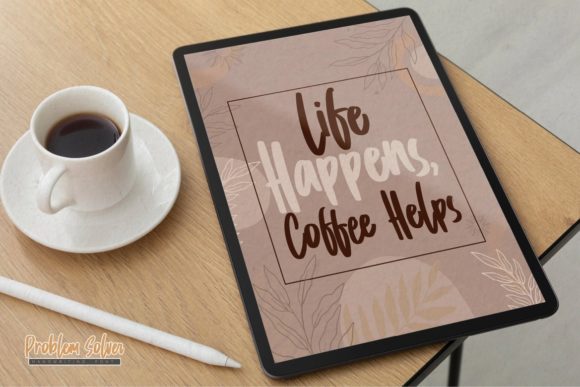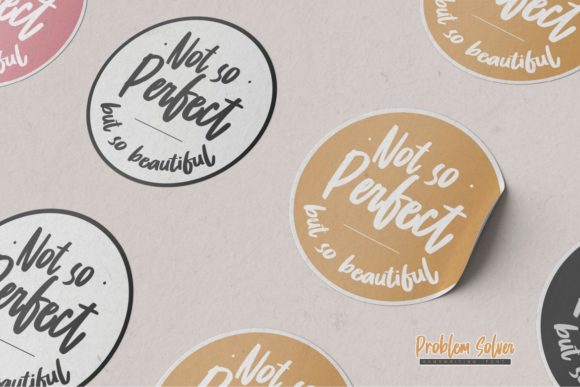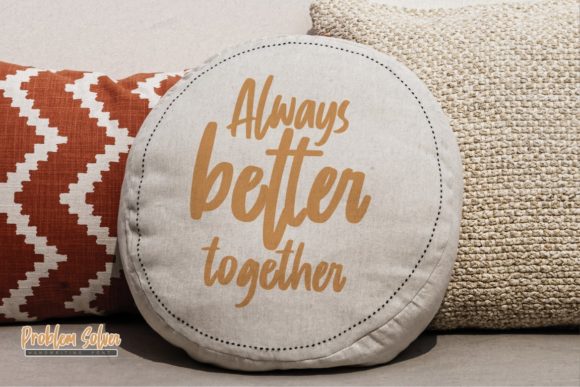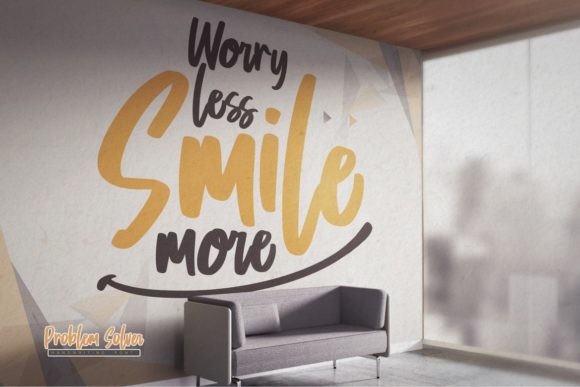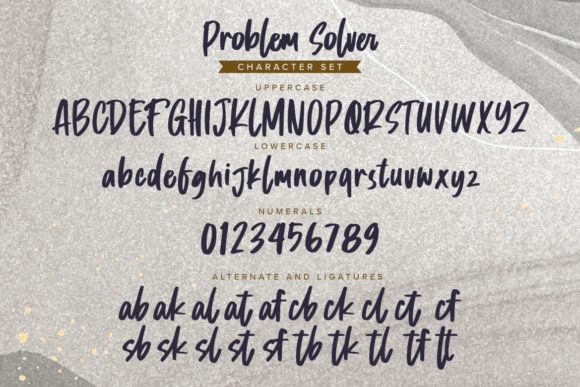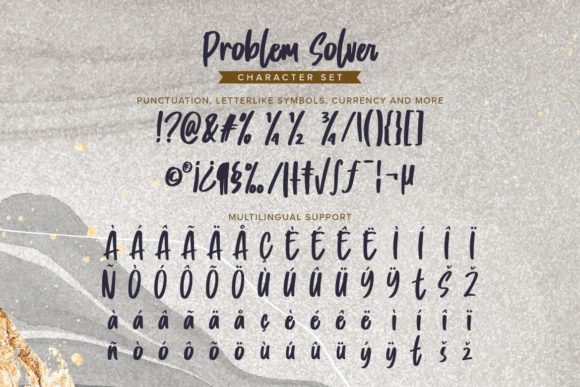
Introduction to Problem Solver Font
Have you ever stared at a blank canvas, wondering how to bring your creative project to life? The blank page can be daunting, but with the right tools, anything is possible. That’s where the Problem Solver Font comes in – a simple, relaxed, and adaptable handwritten font that’s about to become your go-to design resource.
This high-quality font is designed to help you express your creativity without any barriers. Its informal style and casual vibe will make it easy to create unique and eye-catching designs that stand out from the crowd. Whether you’re working on a design project with a transparent background or need a font that’s perfect for a free download, the Problem Solver Font is a valuable asset for any designer.
Key Features of Problem Solver Font
- High-quality design: Problem Solver Font is designed to provide a clear and legible experience for creative projects, with a focus on readability and aesthetic appeal.
- Transparent background: This font features a transparent background, making it ideal for use on complex designs, such as those with multiple layers or gradients.
- High-resolution design: Problem Solver Font is designed at a high resolution (300 DPI), making it suitable for use in a variety of applications, from web design to print materials.
- Unique character set: Problem Solver Font features a unique character set, including a range of special characters and glyphs, making it a versatile design resource for creative projects.
- Easy to use: Problem Solver Font is designed to be easy to use, with a clear and intuitive layout that makes it simple to navigate and select the desired characters.
Honest Review: Problem Solver Font
As a designer, I’m always on the lookout for high-quality design resources that can elevate my creative projects. Recently, I stumbled upon the Problem Solver Font, and I must say it’s been a game-changer. ✨
One of the things that stood out to me about this font is its versatility. It’s perfect for use on a transparent background, which makes it ideal for a variety of design applications. Additionally, the font is available for free download, making it an excellent resource for designers on a budget.
Here are some of the key features that I love about the Problem Solver Font:
- Only available in a limited range of font styles
Overall, I’m thoroughly impressed with the Problem Solver Font. It’s a great design resource that’s perfect for personal projects or small-scale designs. ⚠️ Just be aware of the limitations, and you’ll be golden!
Use the Problem Solver Font on a transparent background to create a clean and modern design. Experiment with different font sizes and colors to add emphasis to your text. Use the font in combination with other design resources, such as graphics and images, to create a cohesive and engaging design.
The Problem Solver Font is ideal for use in a variety of design projects, including presentations, posters, infographics, and websites. Use the font to create a high-quality design that communicates your message effectively and engages your audience.